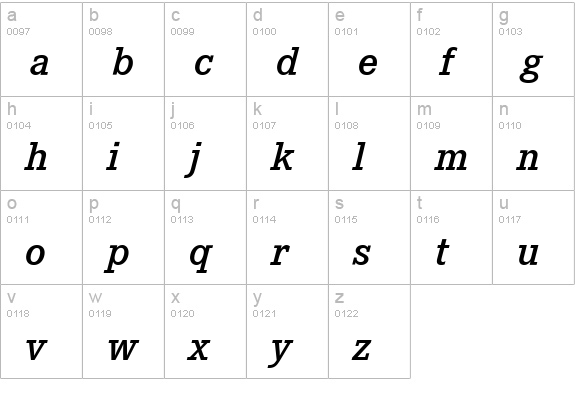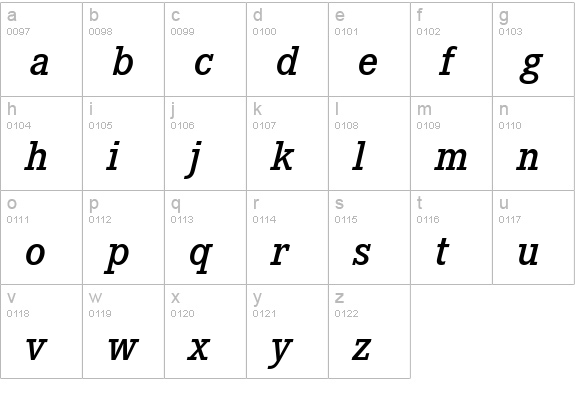
Corporate E kursiv halbfett m Medziff Font Details
Introducing the sophisticated and modern Corporate E kursiv halbfett m Medziff font, a versatile typeface perfect for corporate branding, editorial design, and more. With its sleek and professional look, this font exudes elegance and confidence, making it ideal for a wide range of design projects. The Corporate E kursiv halbfett m Medziff font features a unique blend of boldness and refinement, making it stand out in any setting. Its clean lines and sharp angles give it a distinct personality that is both timeless and contemporary. Best of all, this stunning font is available for free download at FontsMarket.com. Whether you're a designer looking to elevate your projects or a business seeking a fresh new look, the Corporate E kursiv halbfett m Medziff font is sure to make a lasting impression. Download it today and bring your designs to the next level with this exceptional typeface.